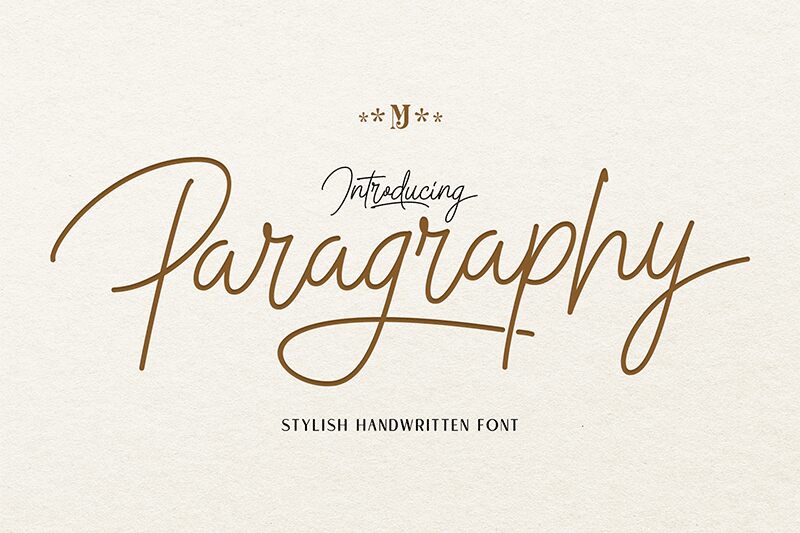
Paragraphy, the whimsical creation of MJType, is an extraordinary handwritten font that adds a touch of elegance to any project.
With its delicate and graceful strokes, Paragraphy brings a sense of sophistication to invitations, greeting cards, and wedding stationery. Its extra-light weight allows for easy readability while maintaining a refined aesthetic. Perfect for fashion blogs, lifestyle magazines, and beauty websites seeking a unique flair.
Let Paragraphy transport your audience into a world where every word is an artistic masterpiece.